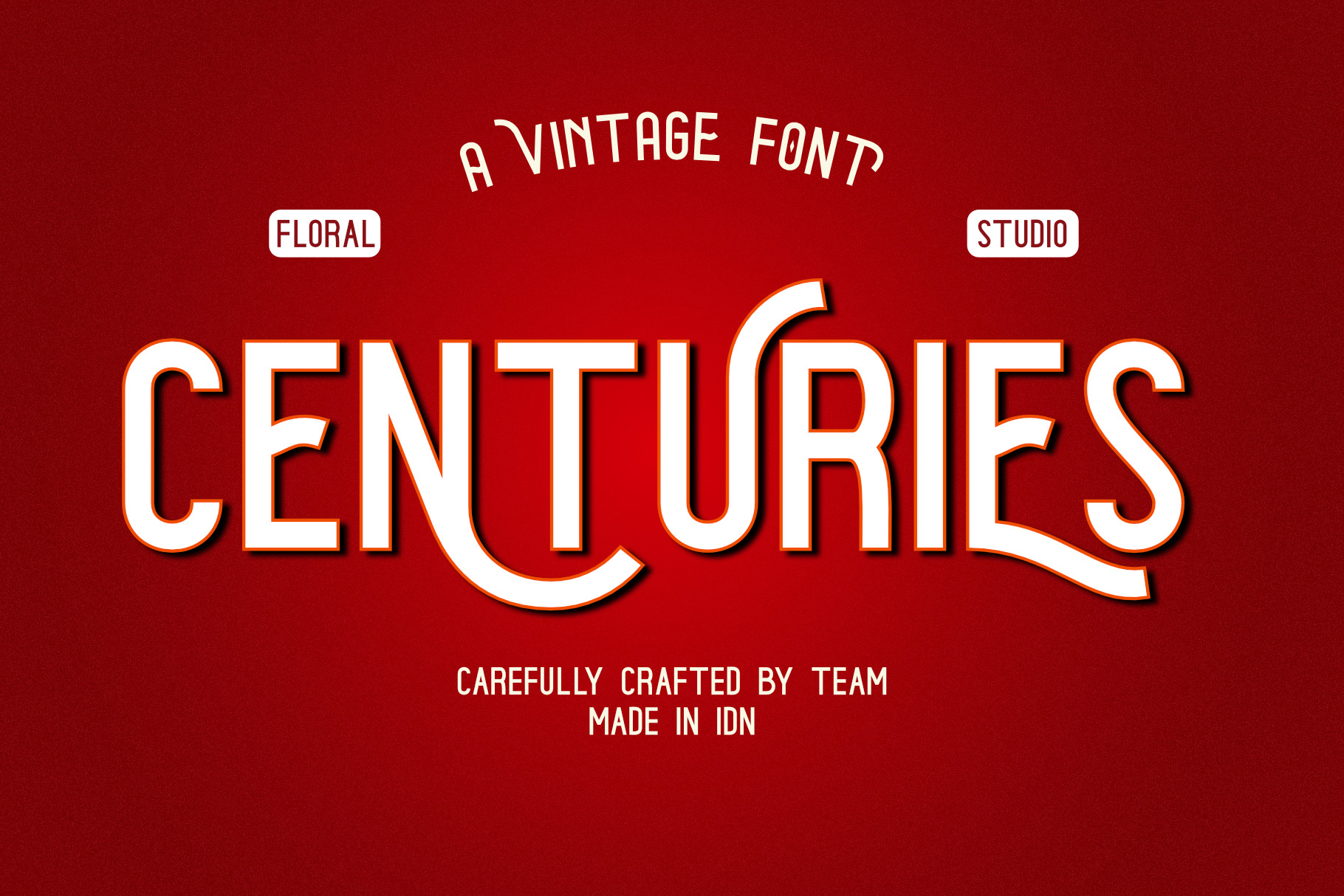
CENTURIES | A VINTAGE FONT
Introducing "CENTURIES" a vintage font. This font offered an amazing experience when you are using it. CENTURIES provided opentype feature like stylistic alternate that allows you play freely your typography game.